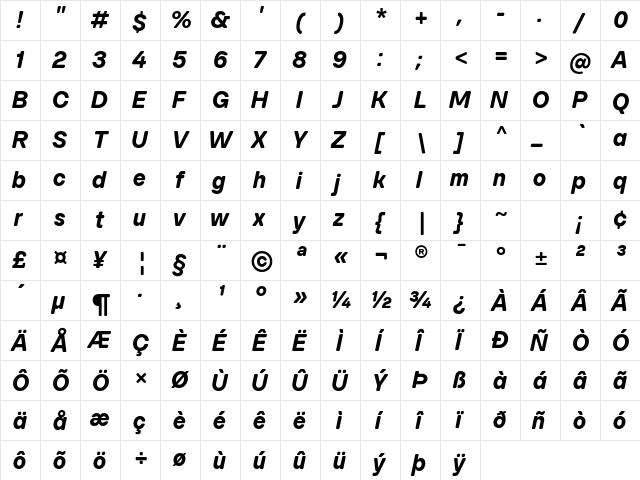
Complete SFT Schrifted Round TRIAL Comp Comp Bold Italic glyph index. Displaying only characters natively supported by SFT Schrifted Round TRIAL Comp Comp Bold Italic font.
SFT Schrifted Round TRIAL Comp Comp softens its letterforms with rounded terminals, giving it an approachable, friendly quality that works well in consumer-facing and digital contexts. The slanted form adds forward momentum and visual energy. Its bold stroke weight gives it real presence on the page.
Font Pairing: Pairs well with a rounded or humanist sans for body copy, maintaining the friendly tone without relying on SFT Schrifted Round TRIAL Comp Comp to carry extended reading.
Pro Tip: Use SFT Schrifted Round TRIAL Comp Comp for UI elements, app interfaces, and anywhere a friendly, approachable tone needs to be maintained without sacrificing clarity.